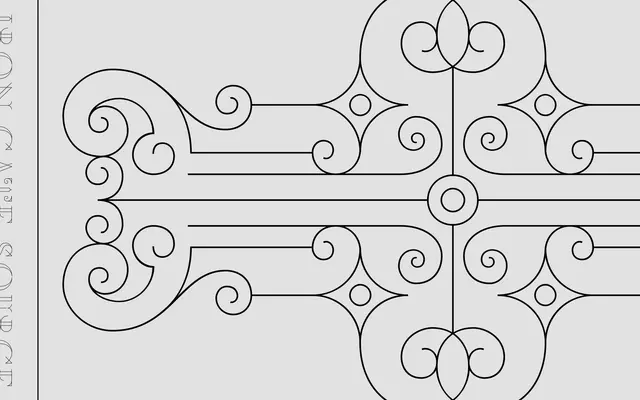
Zadie specimen from A2-Type
A decorative headline typeface drawn from Edwardian cast ironwork, with an inline Regular and a filled Solid cut.
Originally appearing in Vogue UK's Winter 2005 issue, the typeface later received a commissioned cut for Penguin Press's New York edition of Zadie Smith's 'On Beauty'. Available in two styles, Regular and Solid Regular, it is intended strictly for headline use where its ornamental ironwork character can read at large sizes. The family is narrow in scope but specific in purpose, suited to editorial mastheads and literary cover design.
Zadie is a decorative headline typeface with an inline/solid variant, inspired by Edwardian cast ironwork. Its ornamental character and headline-only application place it firmly in the display category.